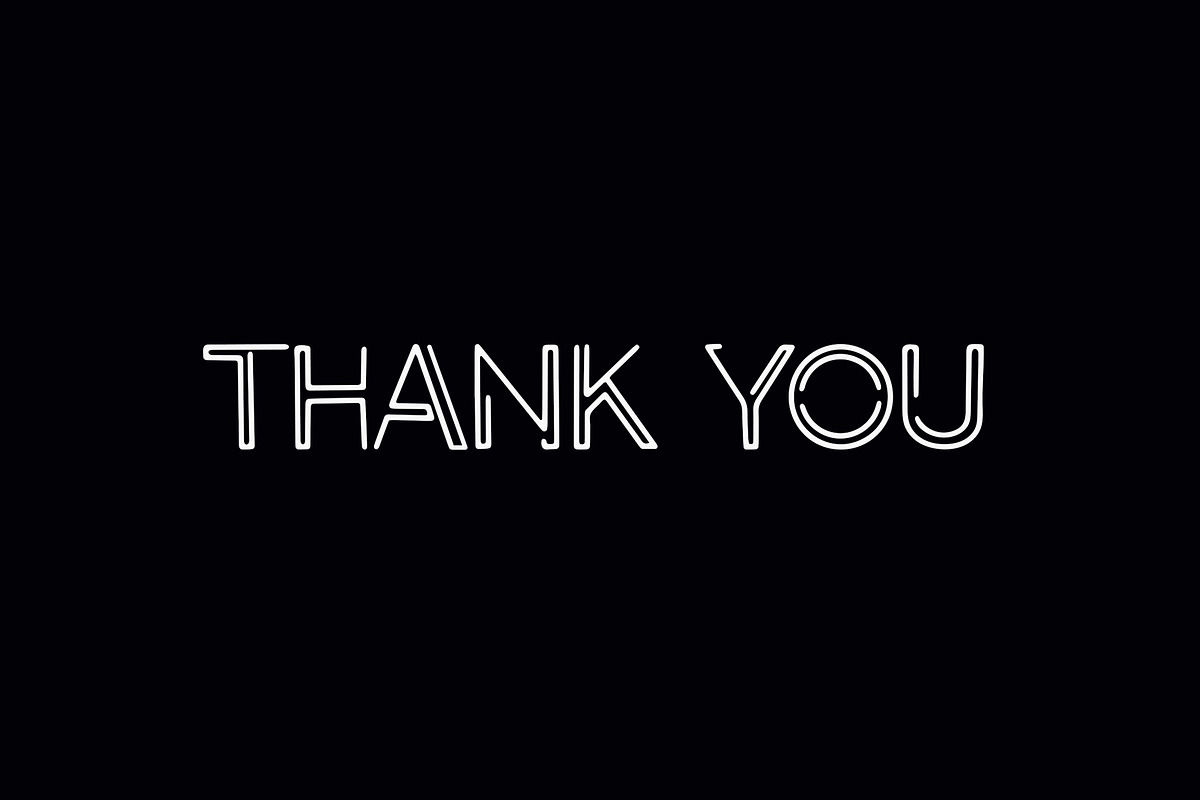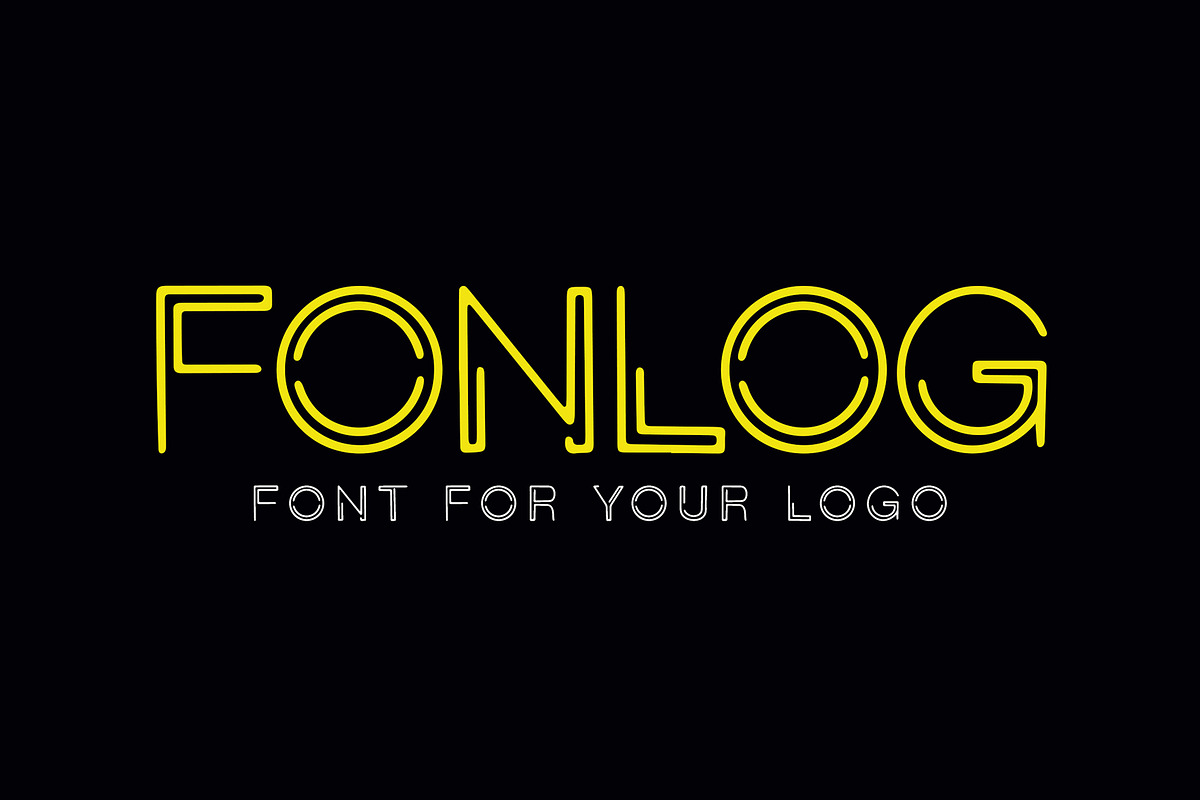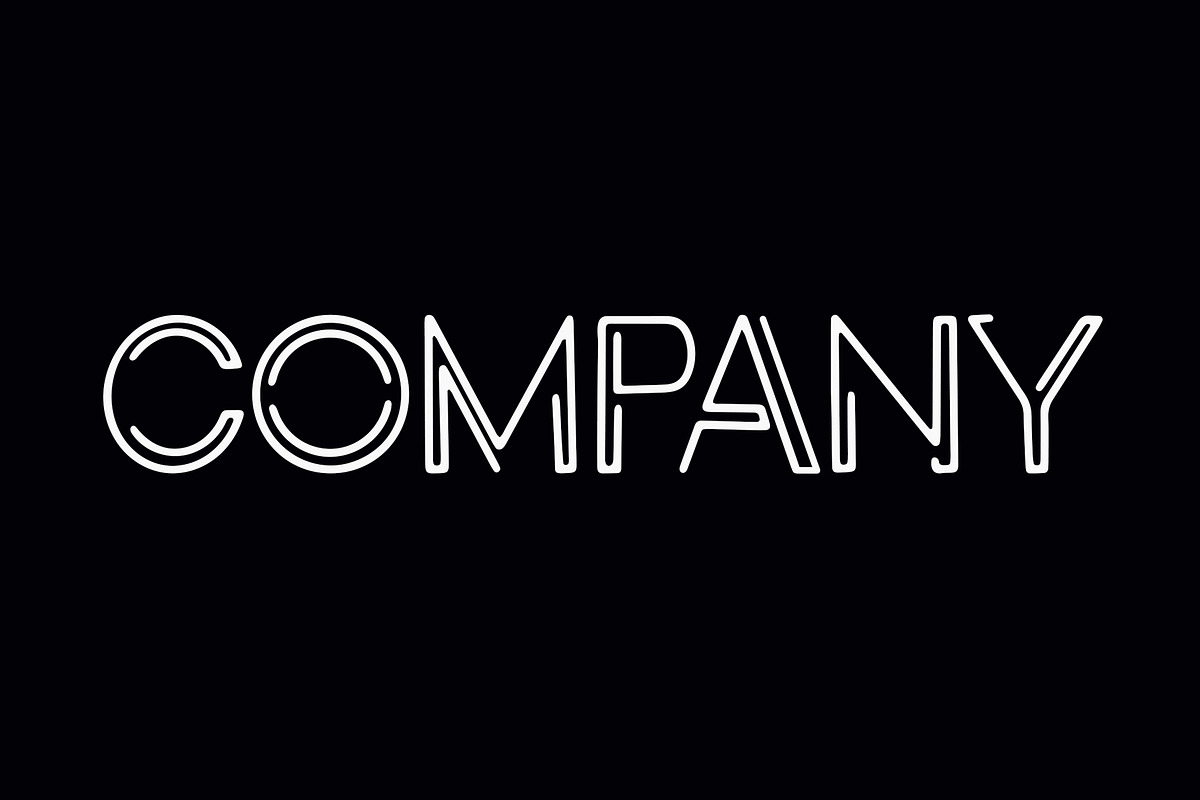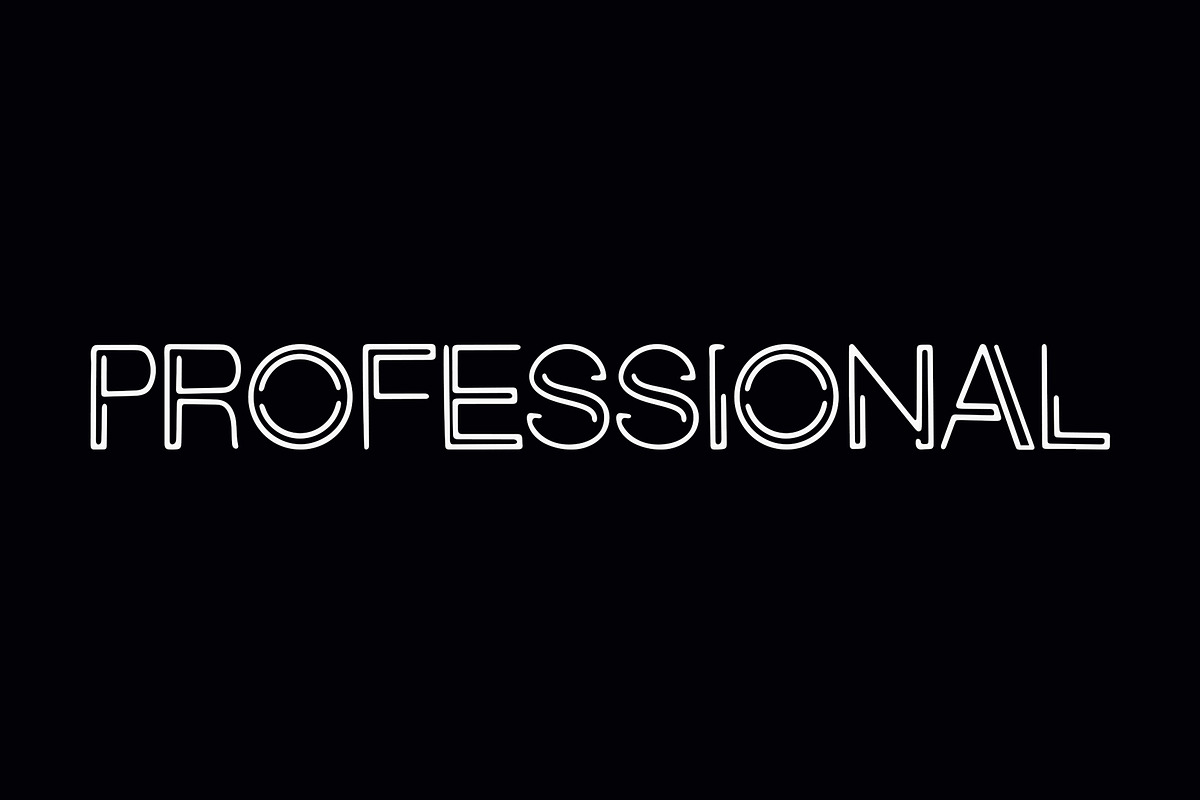
Fonlog
Fonlog is a simple display font with a futuristic feel. Clean and a little bit quirky, this font is the perfect fit for all of your logos, branding, social media, and crafty DIY projects.